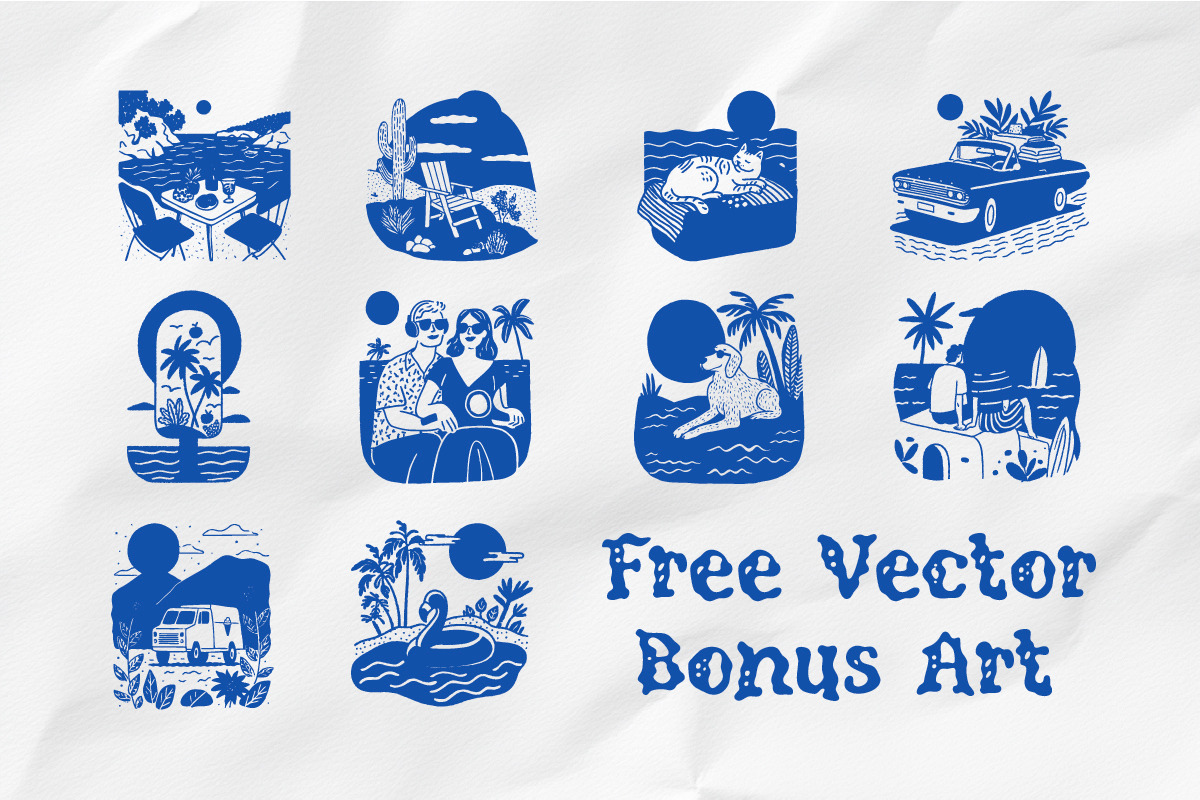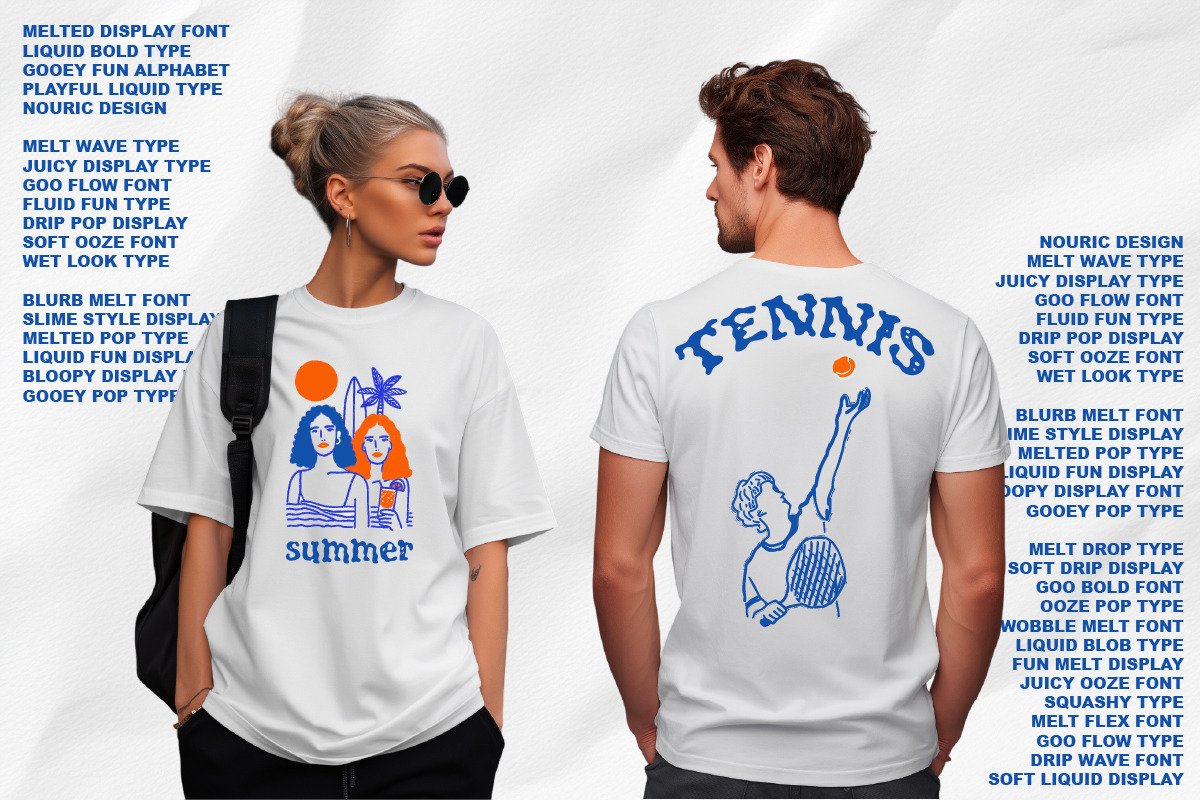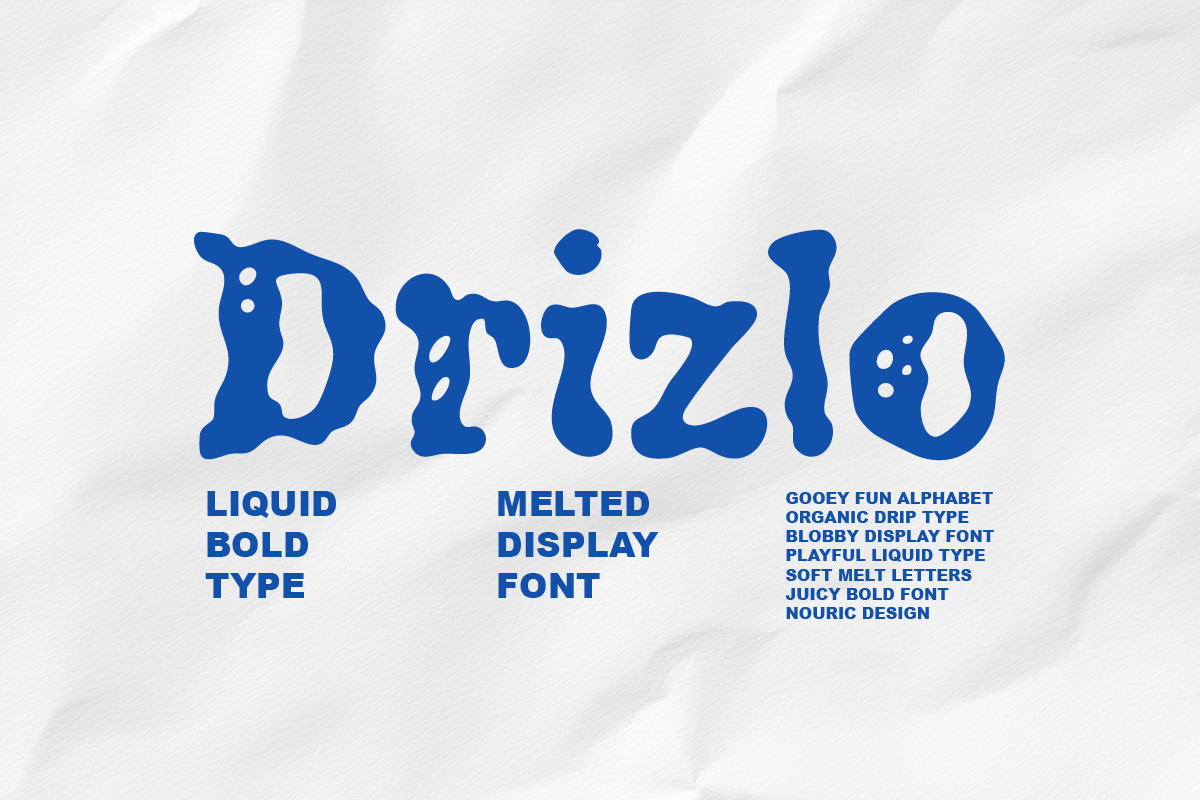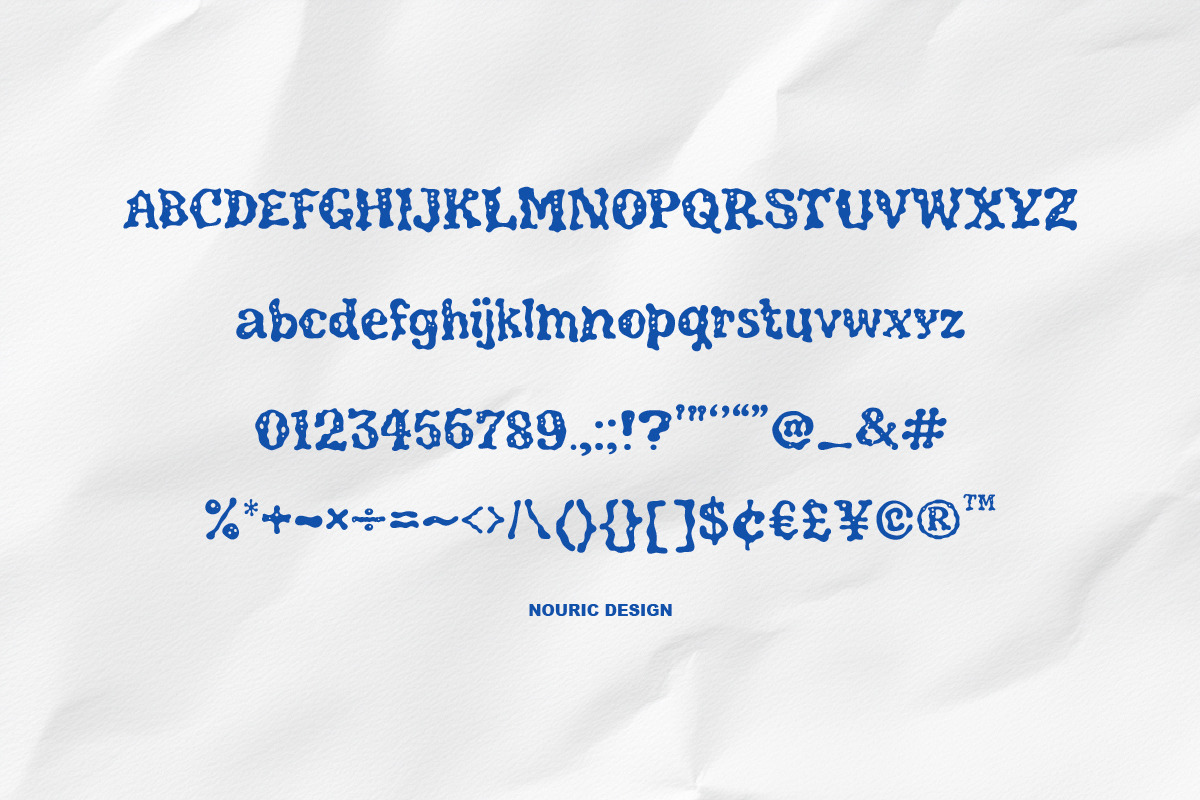
Drizlo - Liquid Display Font
Drizlo is a gooey melted display font with an organic blob shape and playful pore/holes detail. Designed for bold headlines that instantly stand out in thumbnails and posters, Meltoro works great for logos, branding, packaging, stickers, album covers, YouTube thumbnails, and social media graphics.
Best for:
Poster and headline typography
Logo and brand marks (fun, bold, playful)
Merch, stickers, packaging, and product labels
Retro/groovy, Y2K-inspired, psychedelic, cartoon-style designs